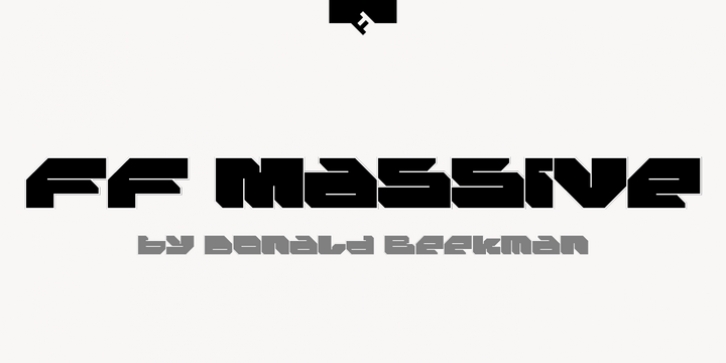
FF Massive downloadDesigner: Donald Beekman
Publisher: FontFont
Dutch type designer Donald Beekman created this display FontFont in 2010.
The family has 8 weights, and is ideally suited for music and nightlife and poster and billboards.
FF Massive provides advanced typographical support with features such as ligatures, alternate characters, and case-sensitive forms.
It comes with proportional lining figures.